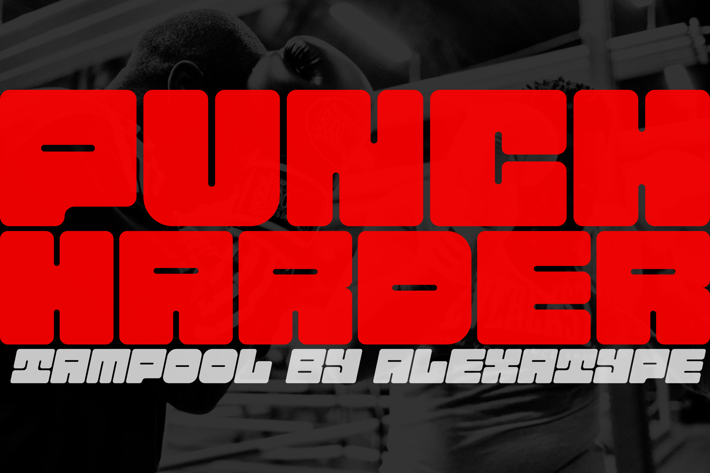
TAMPOOL - Powerful Sport Motivation font
Tampool is a strong, ultra-bold display font designed to command attention in gaming, sports, and high-impact branding. With its square-based letterforms and aggressive stance, this font delivers power, structure, and futuristic energy. Whether you’re designing sports graphics, esports branding, or heavy-duty posters, Tampool ensures your typography stands with undeniable strength.
Key Features
Ultra-Bold Square Design – Heavy, structured, and built for high-impact visuals.
Perfect for Gaming & Esports – A strong presence for logos, team branding, and in-game assets.
Modern & Futuristic Feel – Ideal for tech, sports, and innovation-driven branding.
Highly Legible & Versatile – Works in headlines, merchandise, and digital design.
Tampool is ideal for esports teams, racing promotions, and futuristic branding. Its bold, squared forms enhance high-energy branding, making it a top choice for sports graphics, tech-forward editorial layouts, and action-packed event designs. Whether you’re crafting merchandise, gaming overlays, or industrial-style marketing materials, Tampool’s muscular design ensures dominance in every setting.